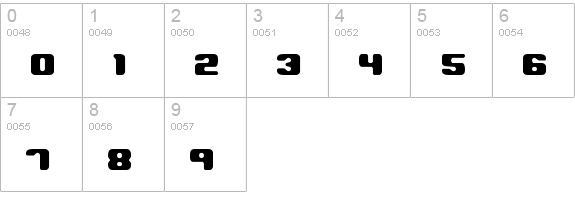
Jawbreaker Hard BRK font is a bold and eye-catching typeface that exudes strength and modernity. With its sharp edges and distinctive style, this font is perfect for creating impactful designs that demand attention. Whether you're working on a poster, logo, or website, Jawbreaker Hard BRK font will make a bold statement. The best part? This unique font is available for free download at FontsMarket.com. Don't miss out on the opportunity to add Jawbreaker Hard BRK font to your collection and take your designs to the next level. Download it today and let your creativity shine!